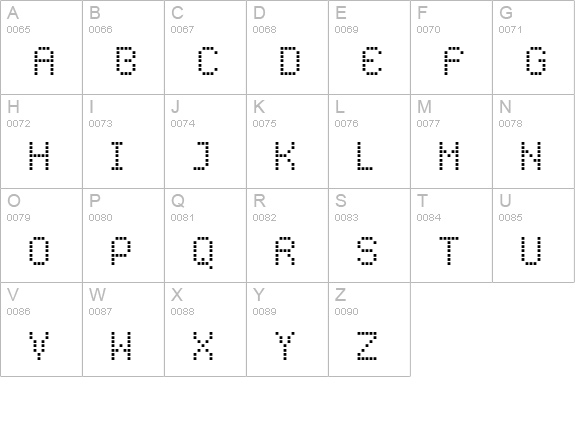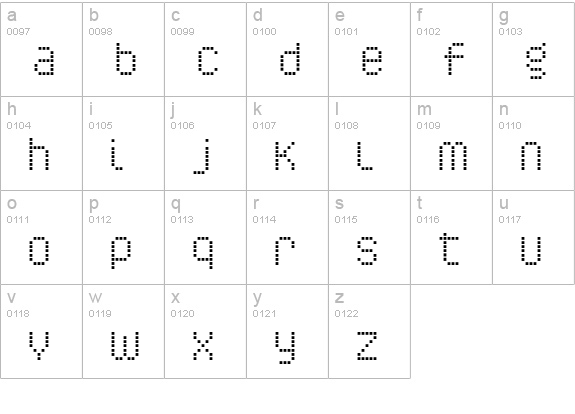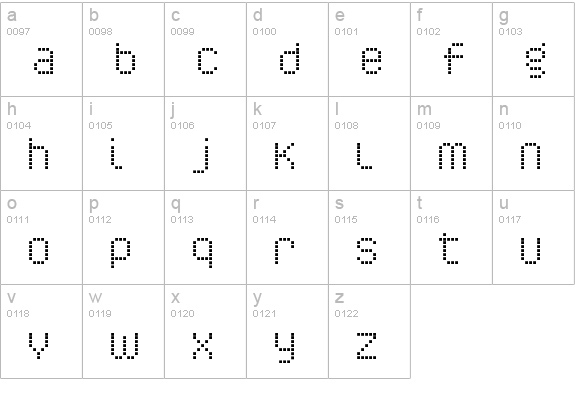
CALIPER-111ML Font Details
CALIPER-111ML is a modern and stylish font that exudes elegance and sophistication. With its sleek lines and sharp angles, this typeface is perfect for creating eye-catching designs that demand attention. The versatile nature of CALIPER-111ML allows it to be used in a variety of projects, from branding to editorial design. The best part? CALIPER-111ML is completely free to download at FontsMarket.com. Whether you're a seasoned designer looking to add a new font to your collection or a beginner searching for the perfect typeface for your next project, CALIPER-111ML is the ideal choice. Don't miss out on this opportunity to elevate your designs with this stunning font that is both elegant and free to use.